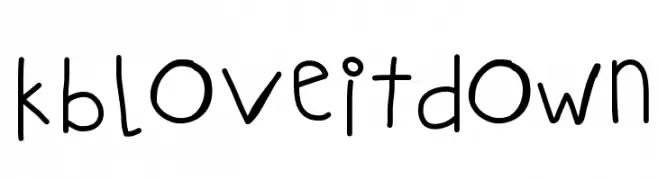
A whimsical, swirly font with a playful and artistic design.
( Fonts by Des Gomez )
A playful, handwritten font with tall, narrow letters and a casual style.
( Fonts by Khrys Bosland )
A vintage typewriter-style monospaced font with consistent stroke width and prominent serifs.
( Fonts by Khrys Bosland )
A clean, monospaced font with thin strokes and a modern aesthetic.
( Fonts by Des Gomez )
A whimsical, hand-drawn font with playful, artistic characters.
( Fonts by Des Gomez )
A playful, handwritten font with a whimsical and casual style.
( Fonts by Khrys Bosland )
A playful handwritten font with a casual and friendly style.
( Fonts by Des Gomez )
A playful, hand-drawn font with a whimsical and informal style.